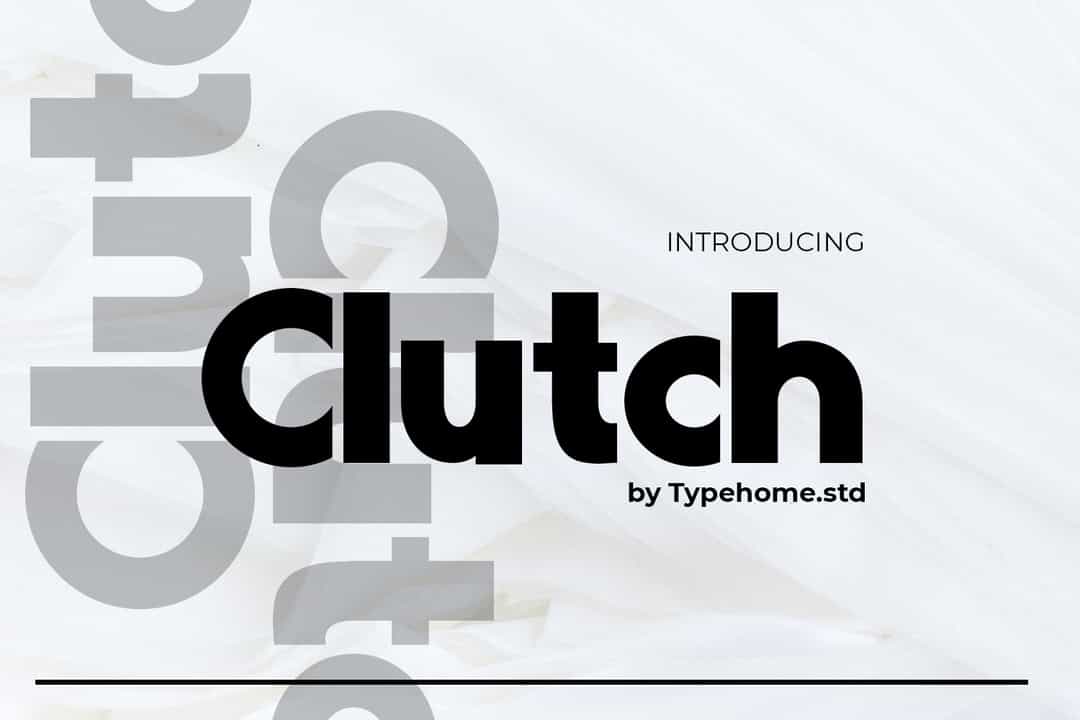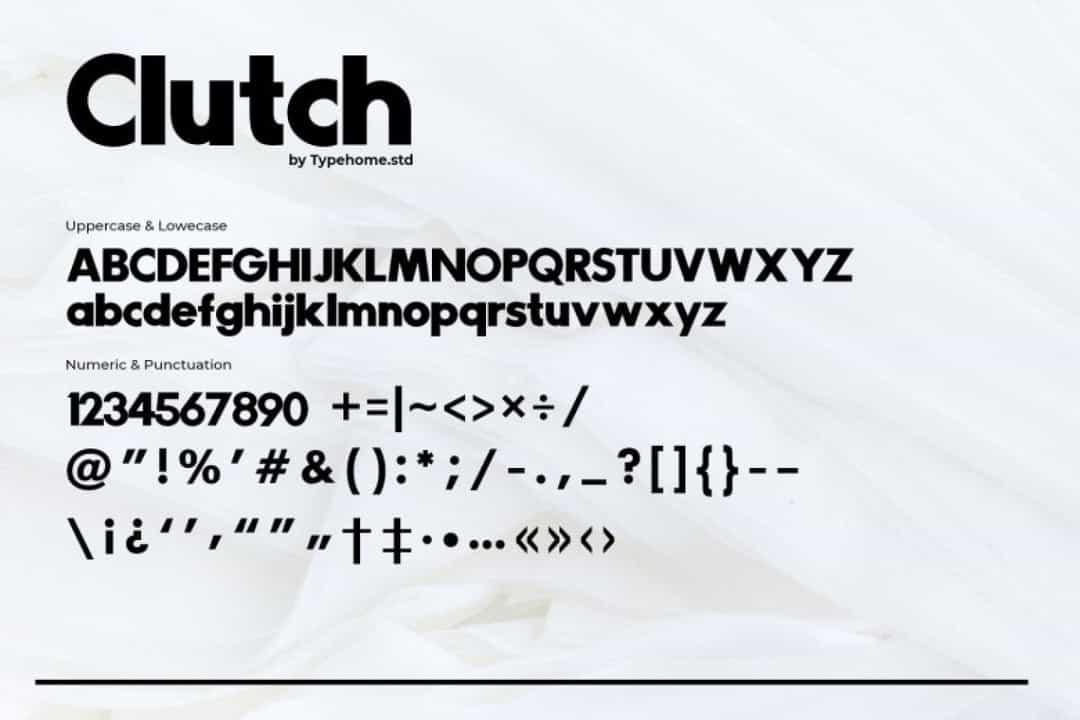
Discover Clutch Font, part of the Sans Serif Display collection—a versatile and unique font perfect for adding a personal touch to your projects. Download it for free and enjoy crafting designs with style, from invitations to social media posts. This font is available exclusively for personal use, giving you the freedom to create without limits. Unlock your creativity with Clutch Font today!
Clutch is a sans serif font that is bold but does not have any frills to it and is best suited for headings. This font has a powerful visual appeal and will make any design more attractive than any other fonts; use it in your work and see the difference!